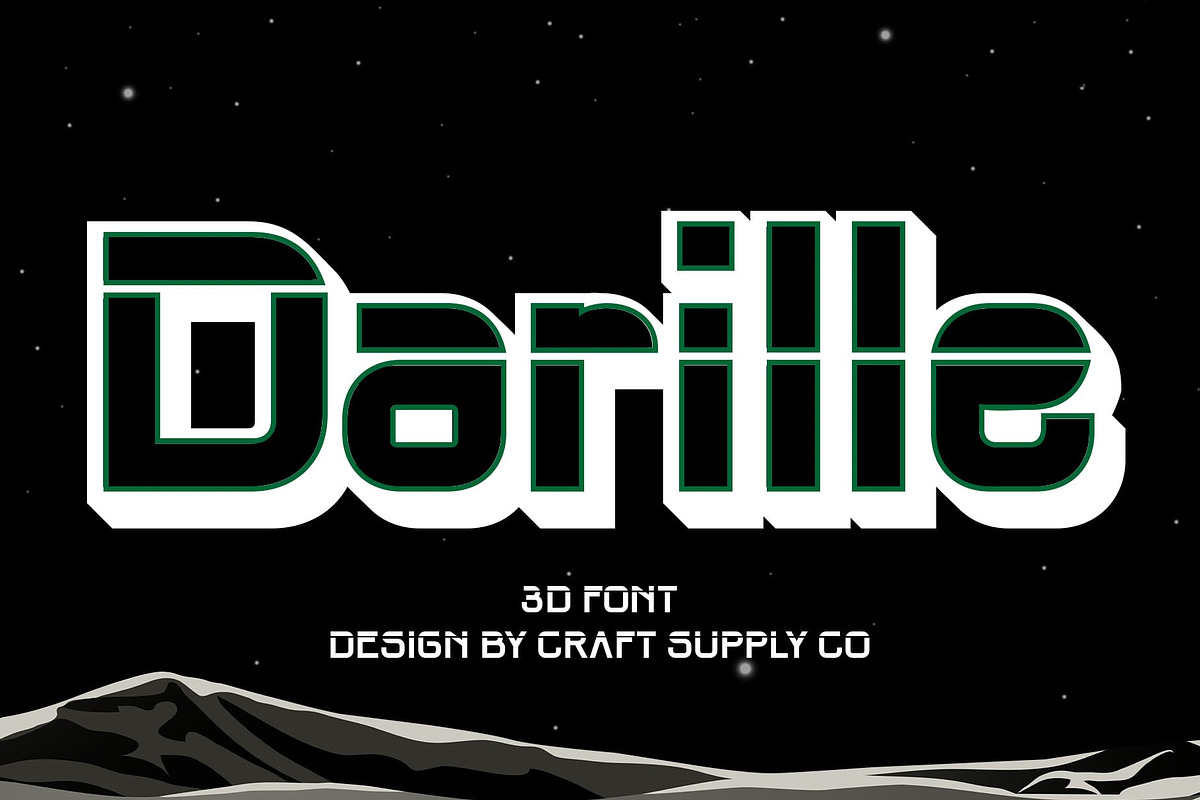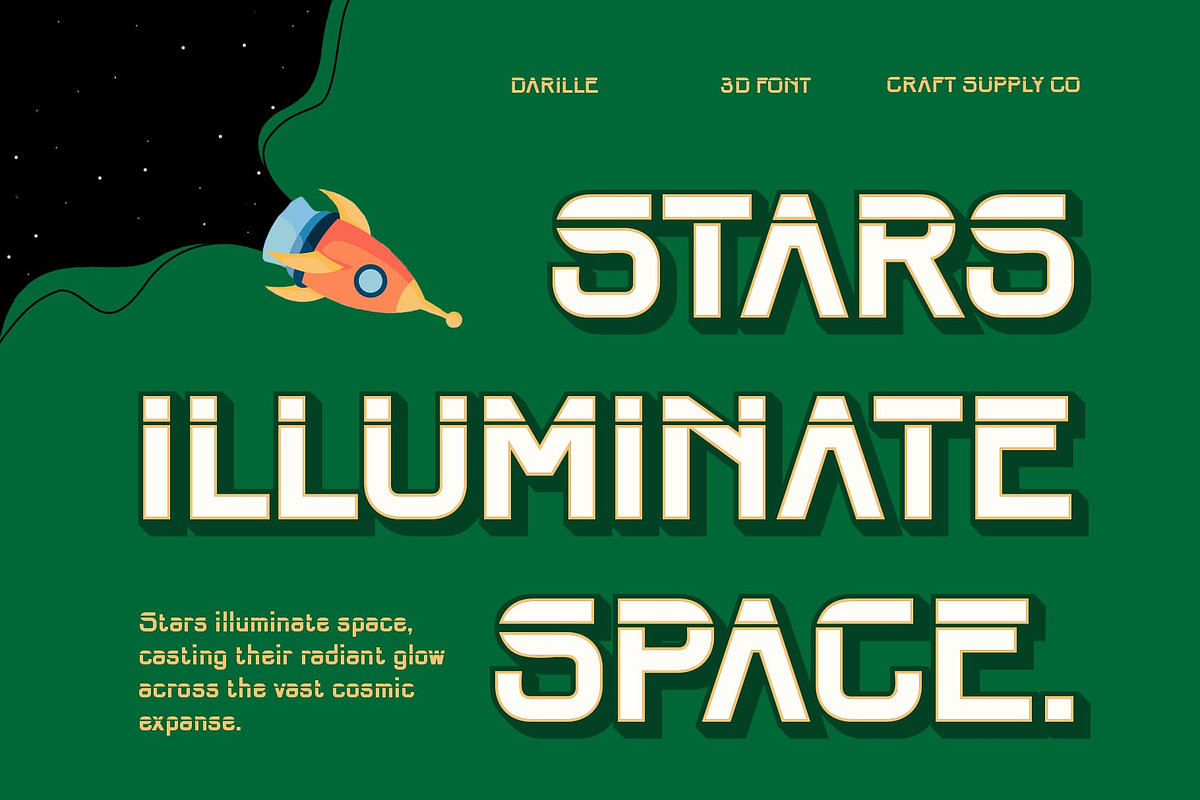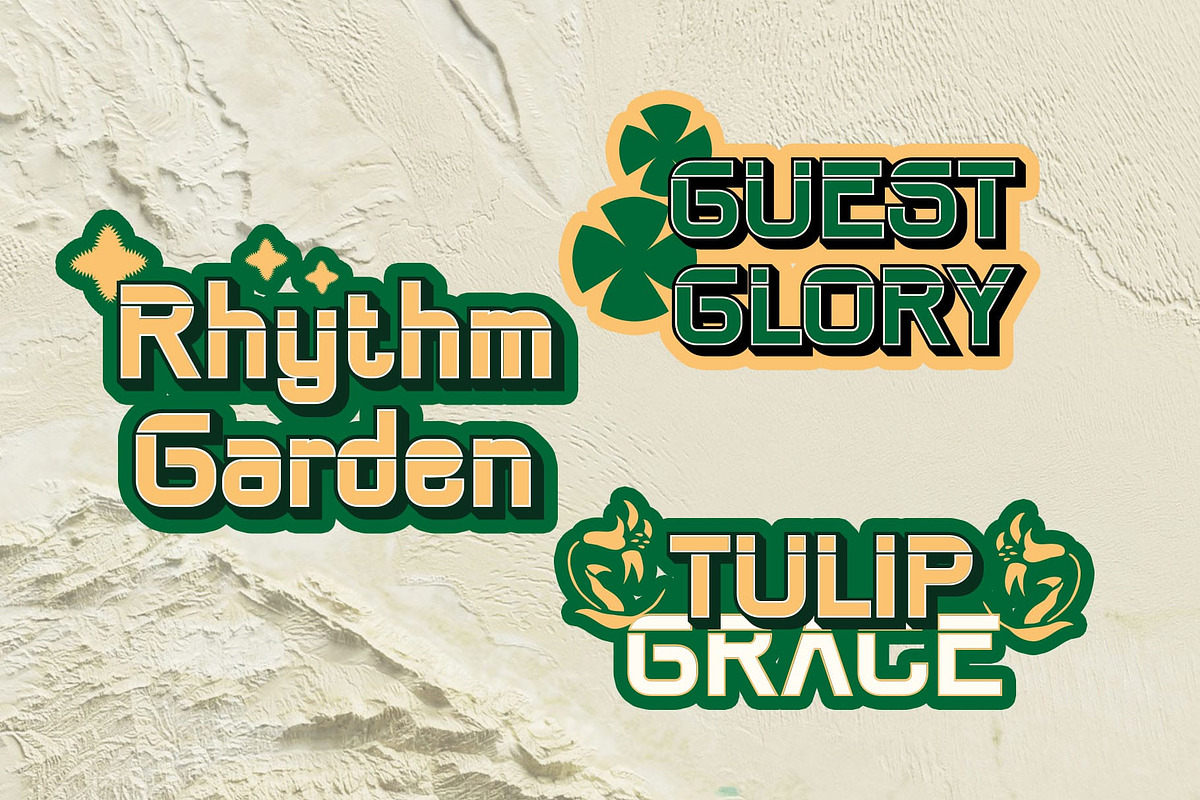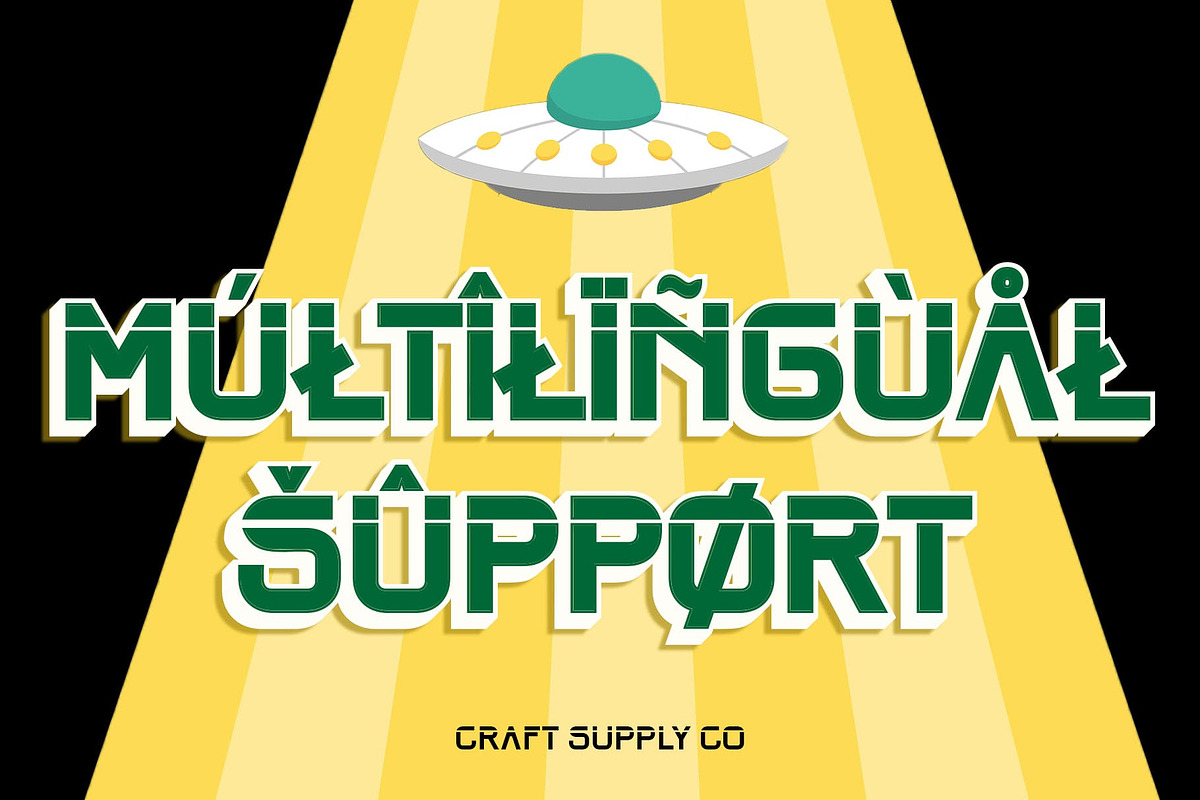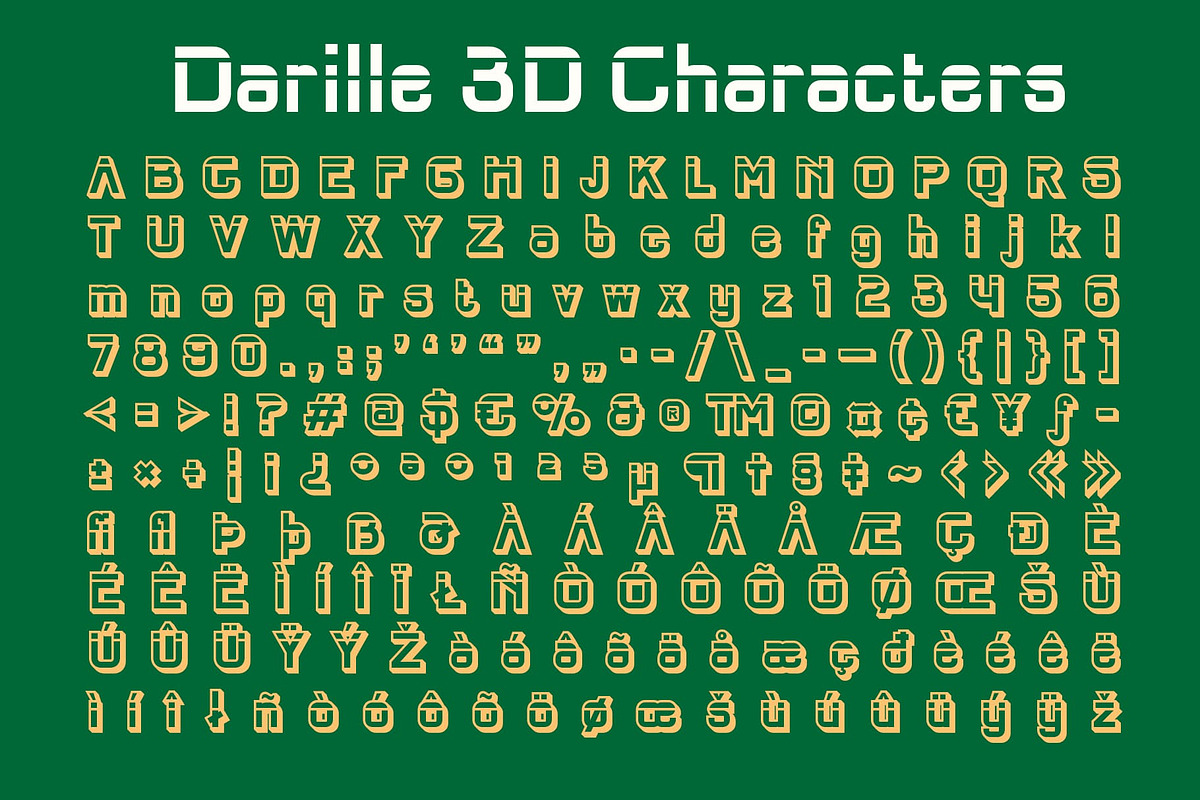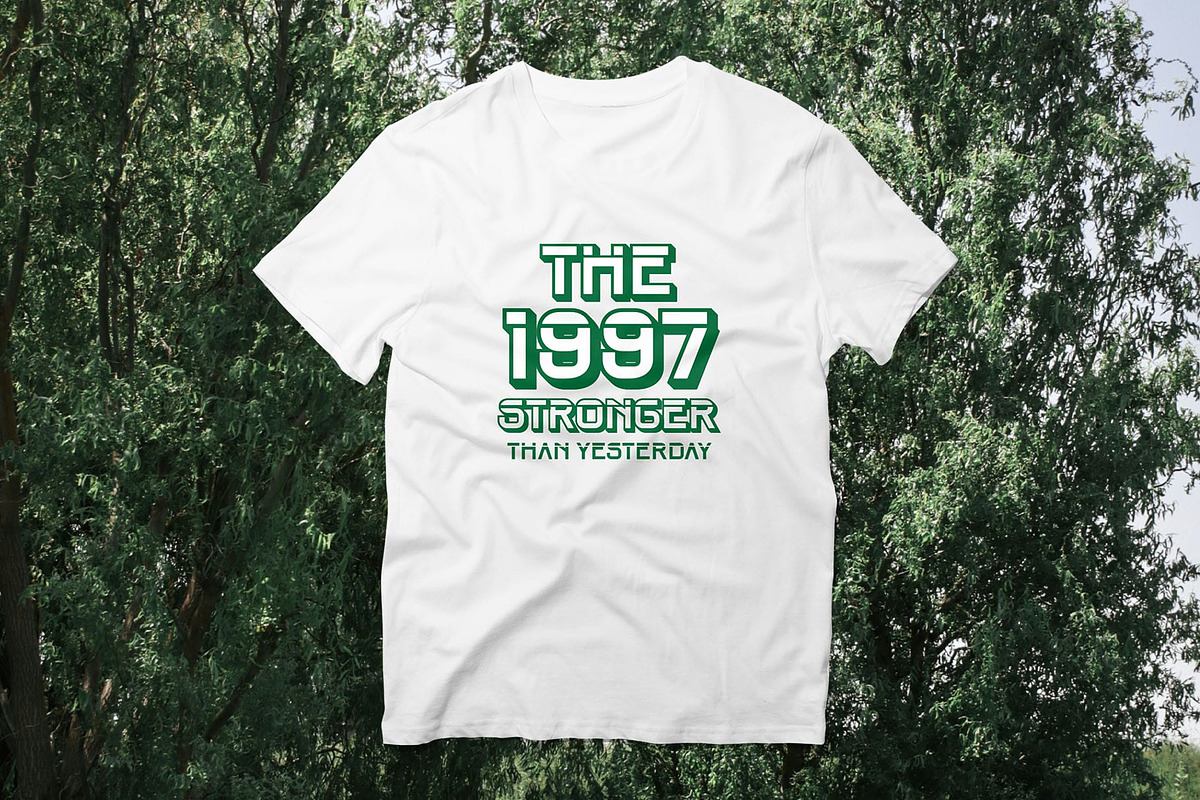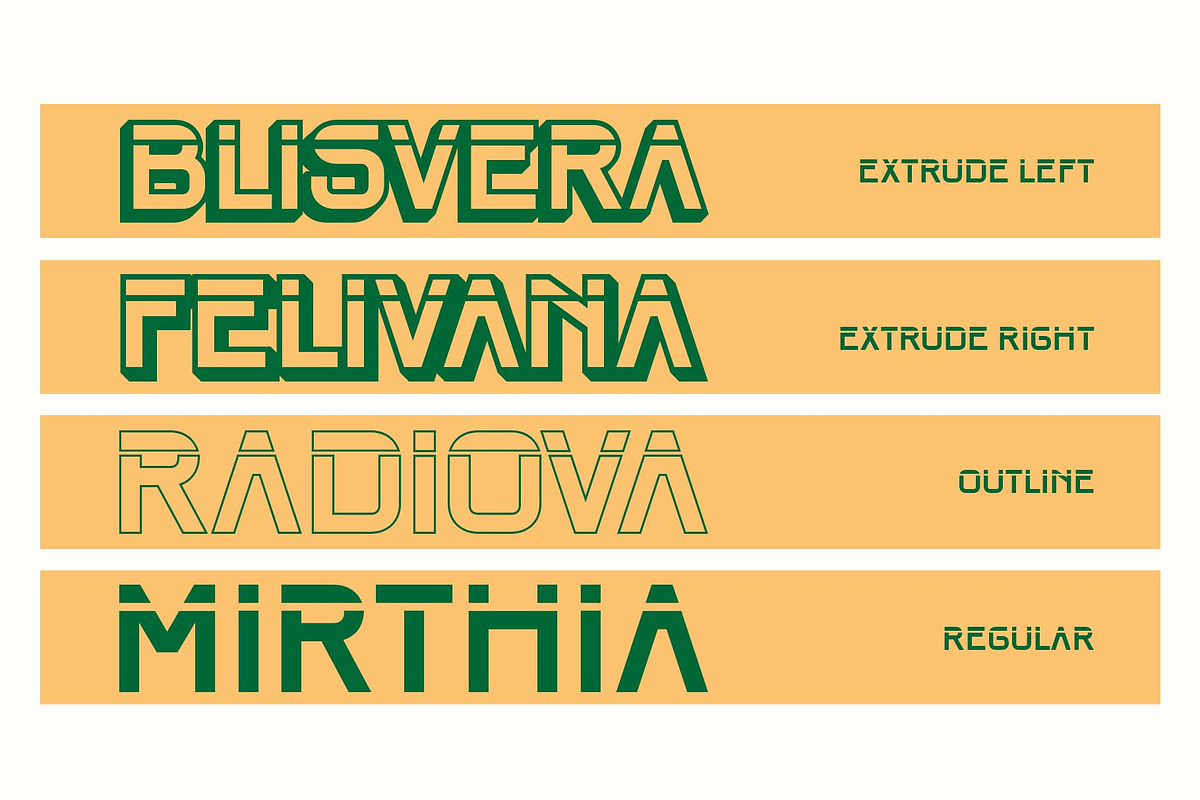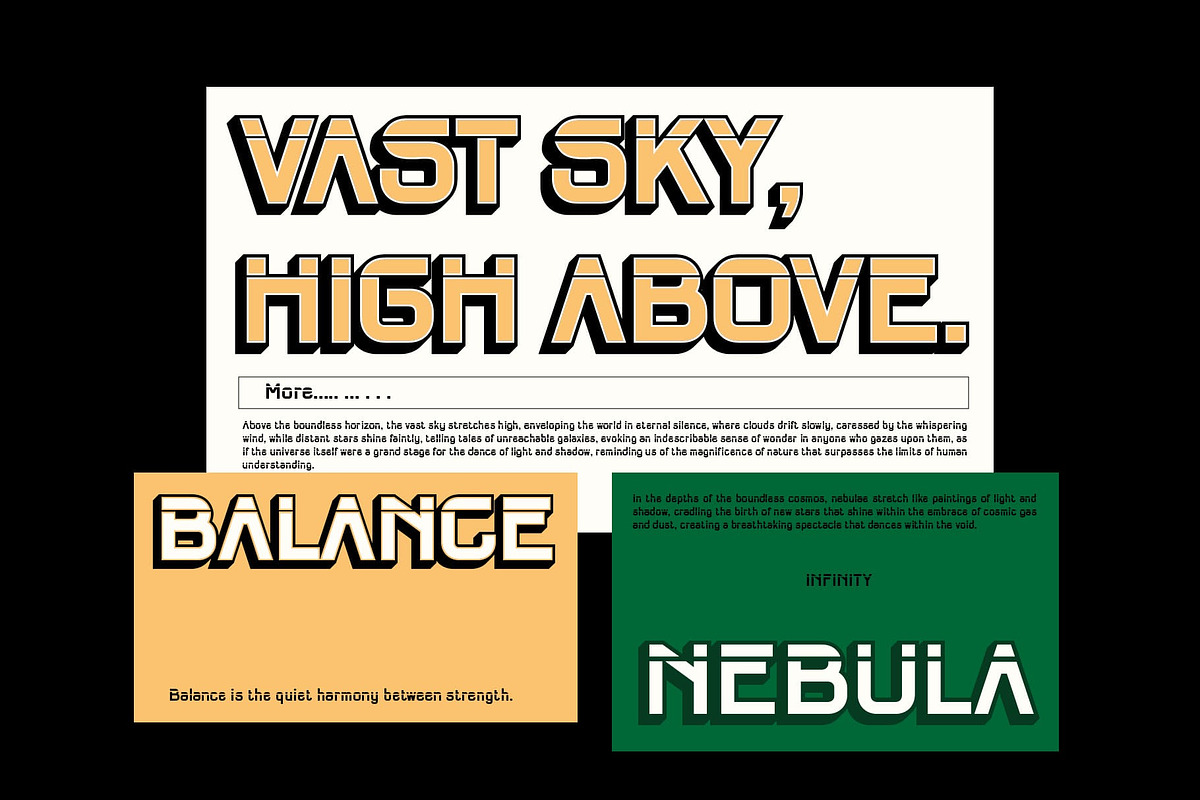
Darille 3D
Darille 3D – A Futuristic and Bold Sans-Serif Font
A Modern Sans-Serif with a Striking 3D Effect Darille 3D is a cutting-edge sans-serif font featuring a geometric structure and a bold 3D effect that enhances depth and dimension. Designed with sharp angles, clean lines, and precise detailing, it delivers a futuristic and dynamic aesthetic. Perfect for technology, sci-fi themes, and forward-thinking branding, this font brings a strong visual impact to any design.
Futuristic and Innovative Design With its sleek letterforms and bold construction, Darille 3D embodies modern innovation and digital aesthetics. The three-dimensional depth adds a striking effect, making it a standout choice for UI/UX design, posters, logos, and futuristic typography projects. Its high-tech appeal is ideal for brands and creatives who want to showcase a visionary and progressive identity.
Perfect for Eye-Catching Branding and Graphics Darille 3D is a go-to font for bold, modern visuals. Whether you’re working on advertising, product packaging, or gaming interfaces, its high readability and impactful style make it perfect for headlines, banners, and display purposes. The font’s geometric balance and strong character ensure versatility across digital and print media.
Designed for the Future of Typography Blending contemporary aesthetics with a futuristic edge, Darille 3D is ideal for projects that demand innovation and energy. Its three-dimensional form creates a sense of movement, making it an excellent choice for technology brands, esports visuals, modern editorial layouts, and experimental designs.
- Darille Regular
- Darille Outline
- Darille Extrude Right
- Darille Extrude Left